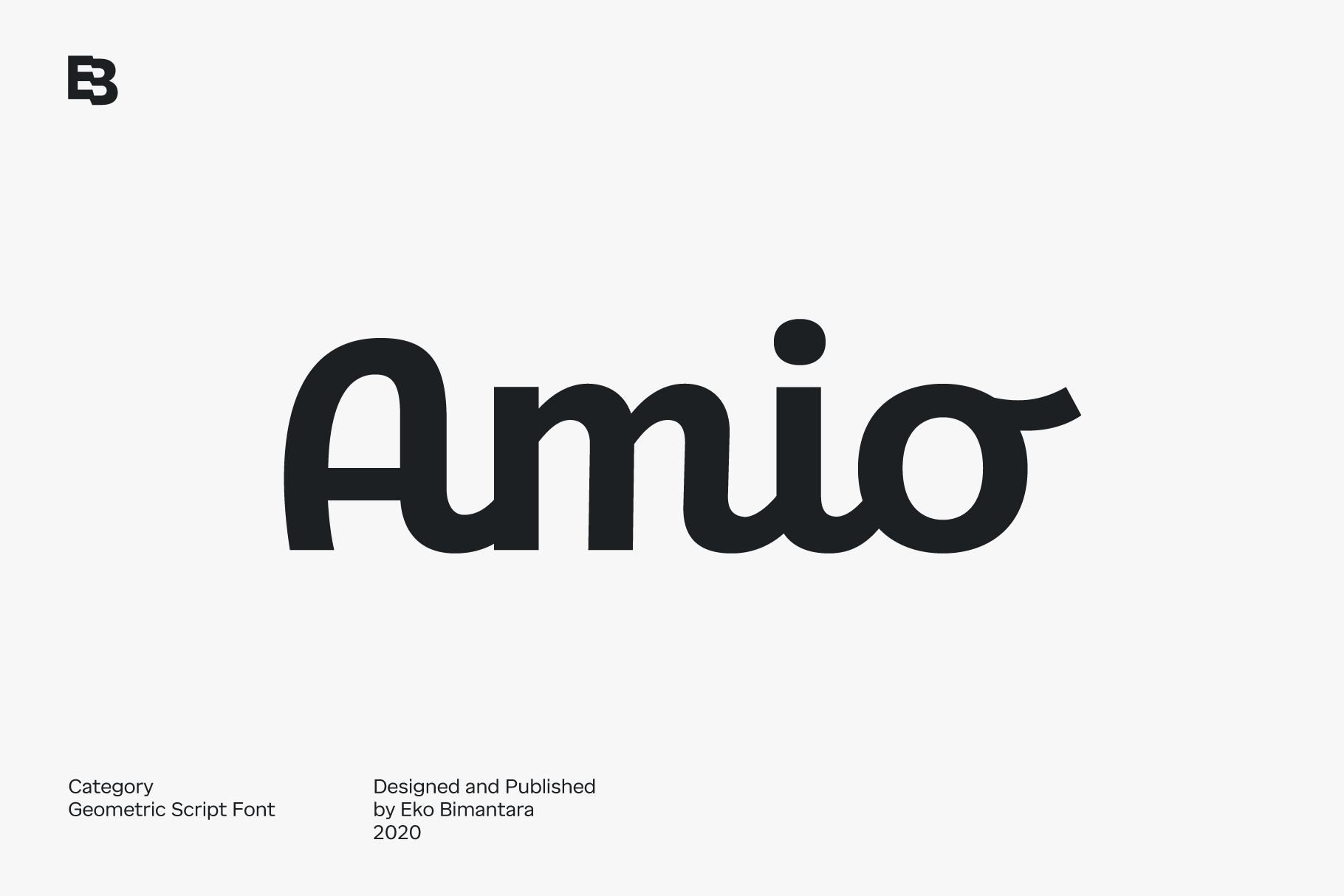
Amio; 6 Fonts Geometrical Script
Amio is fun geometrical connected script font family. Consist of 6 styles from light to extrabold. Perfect for branding and suitable for a variety of fun projects.